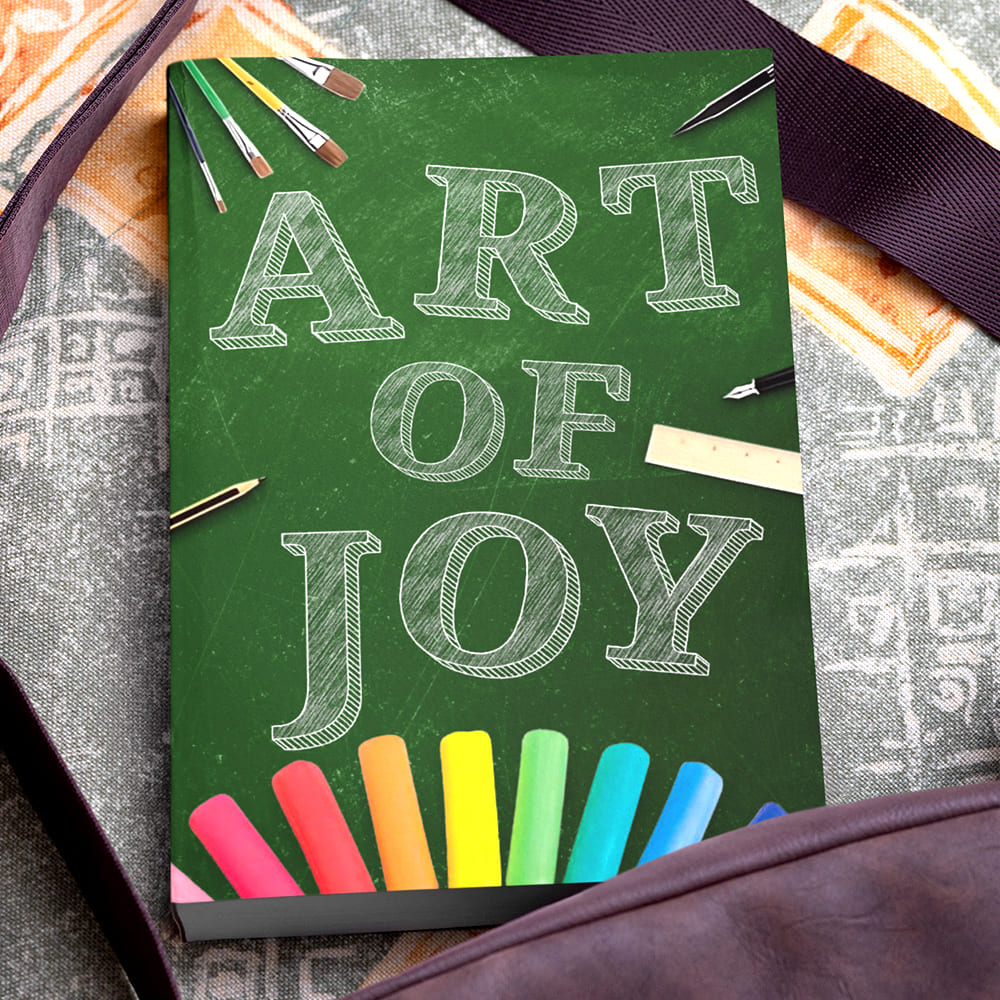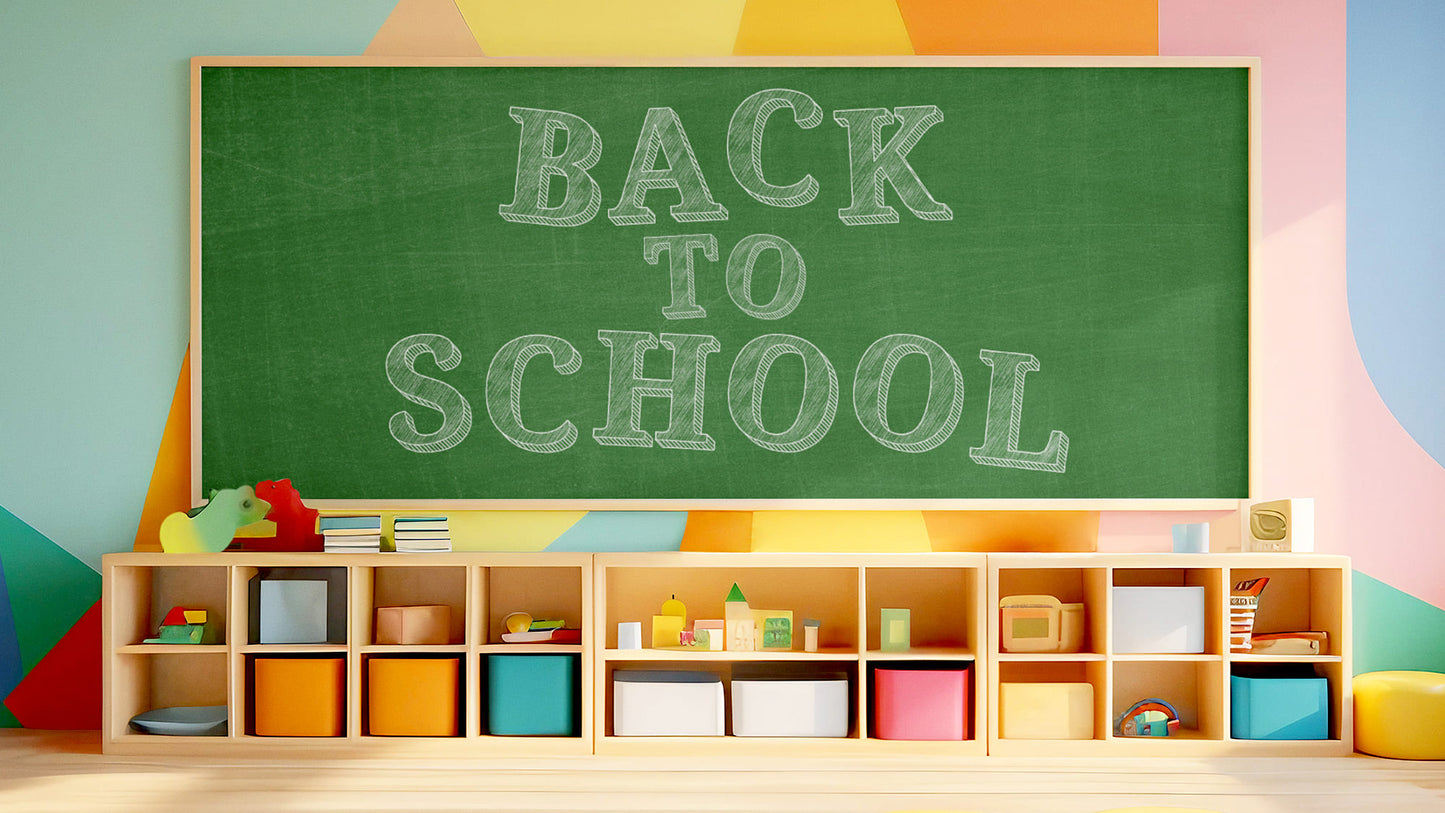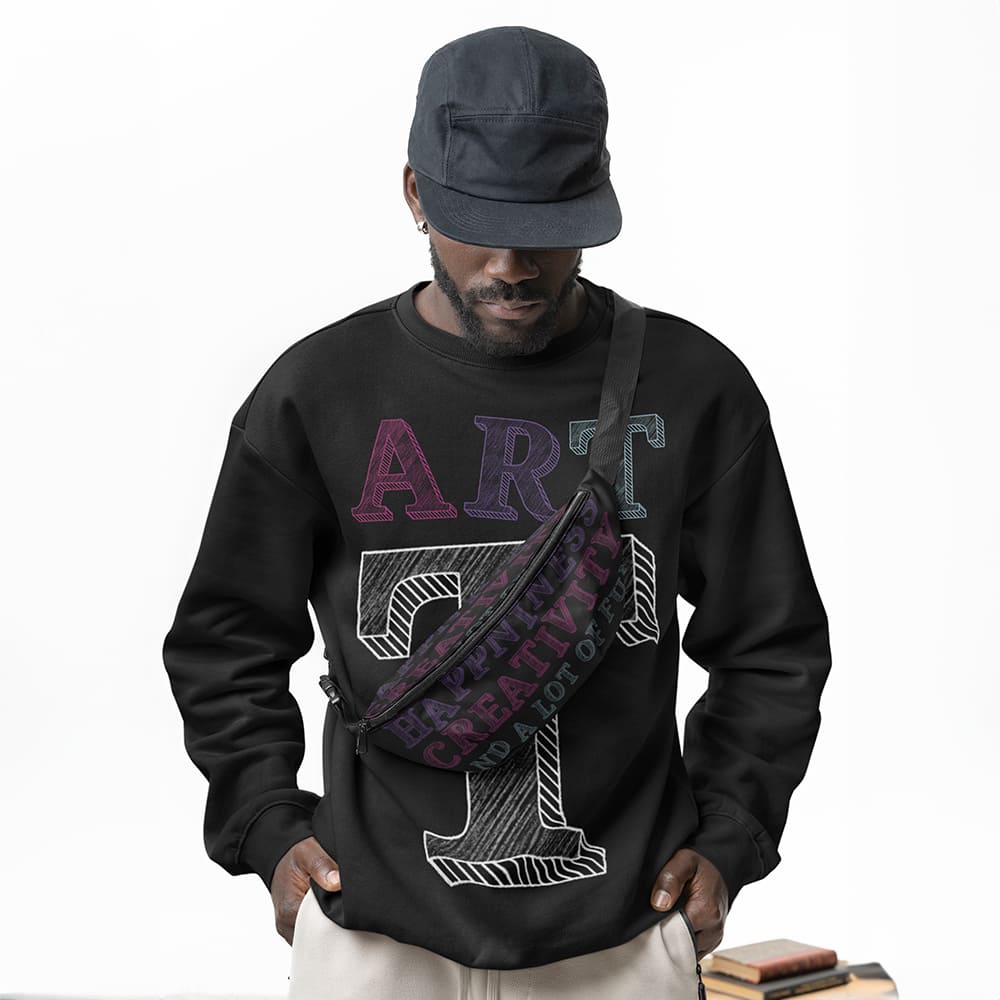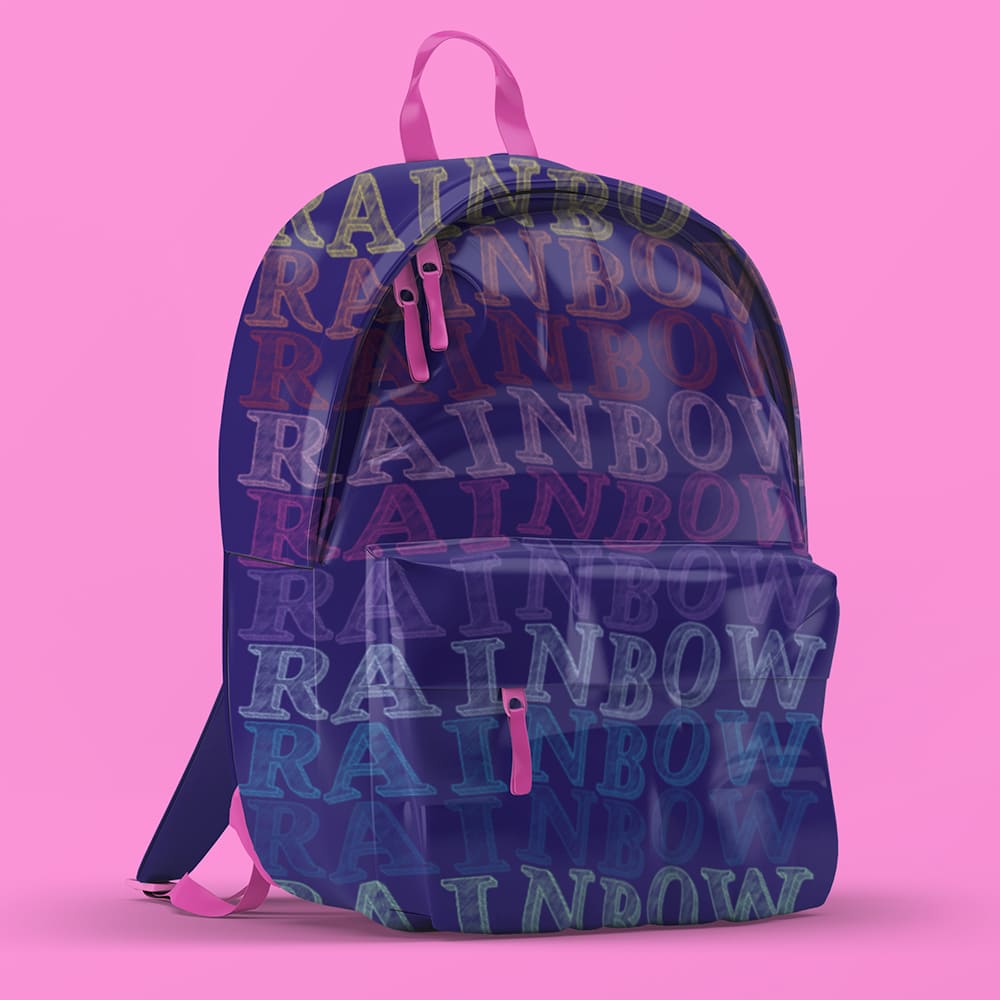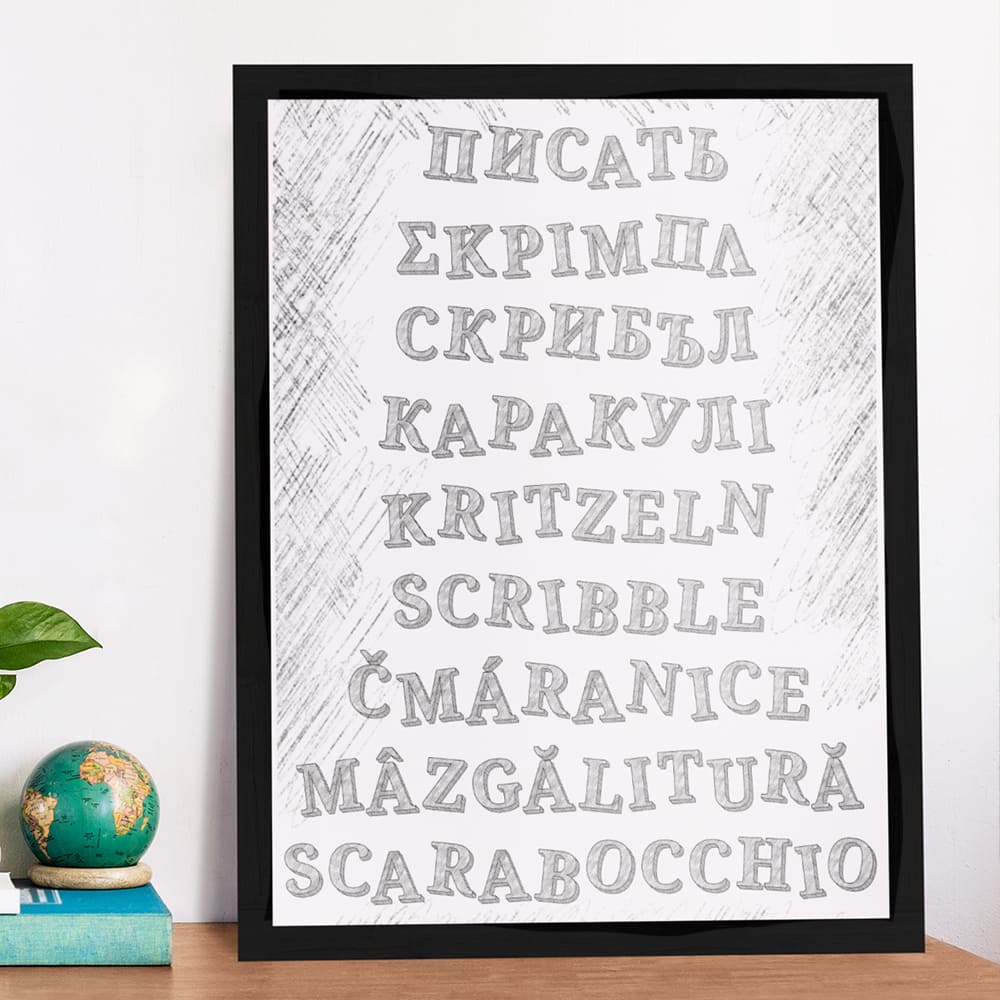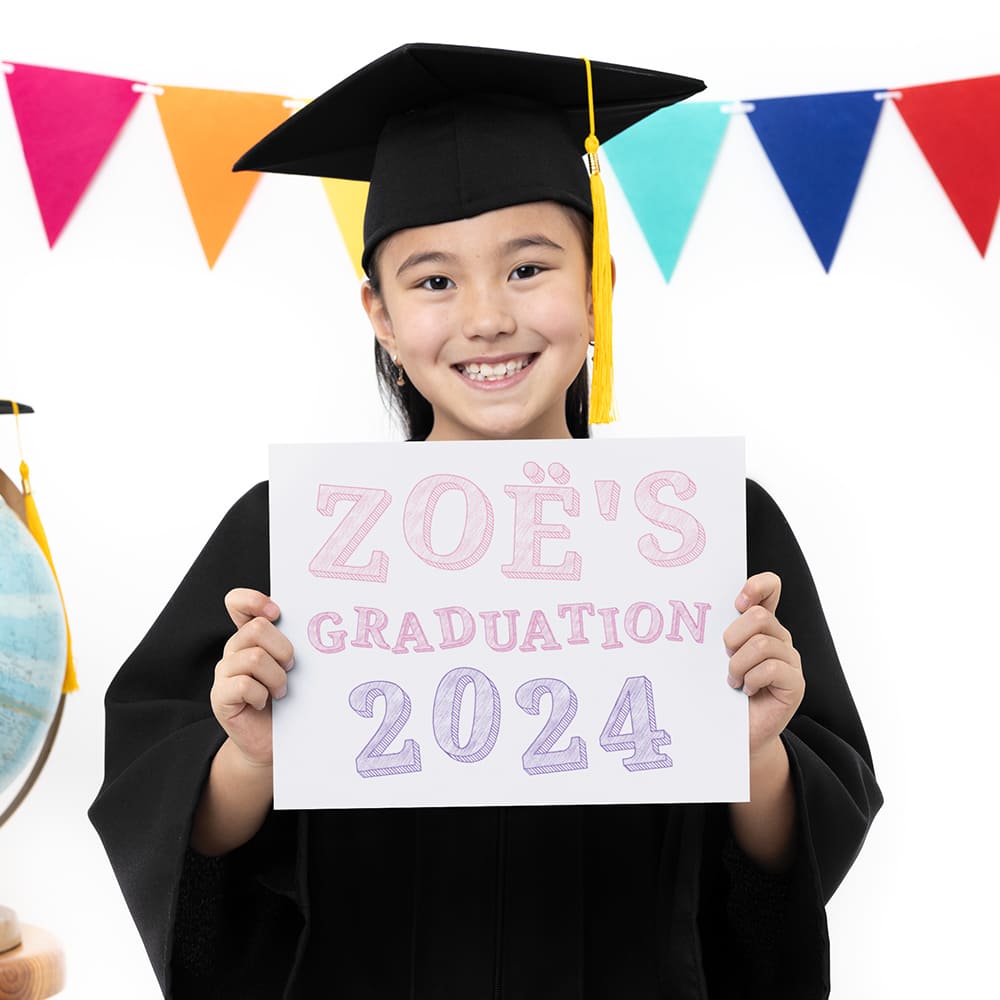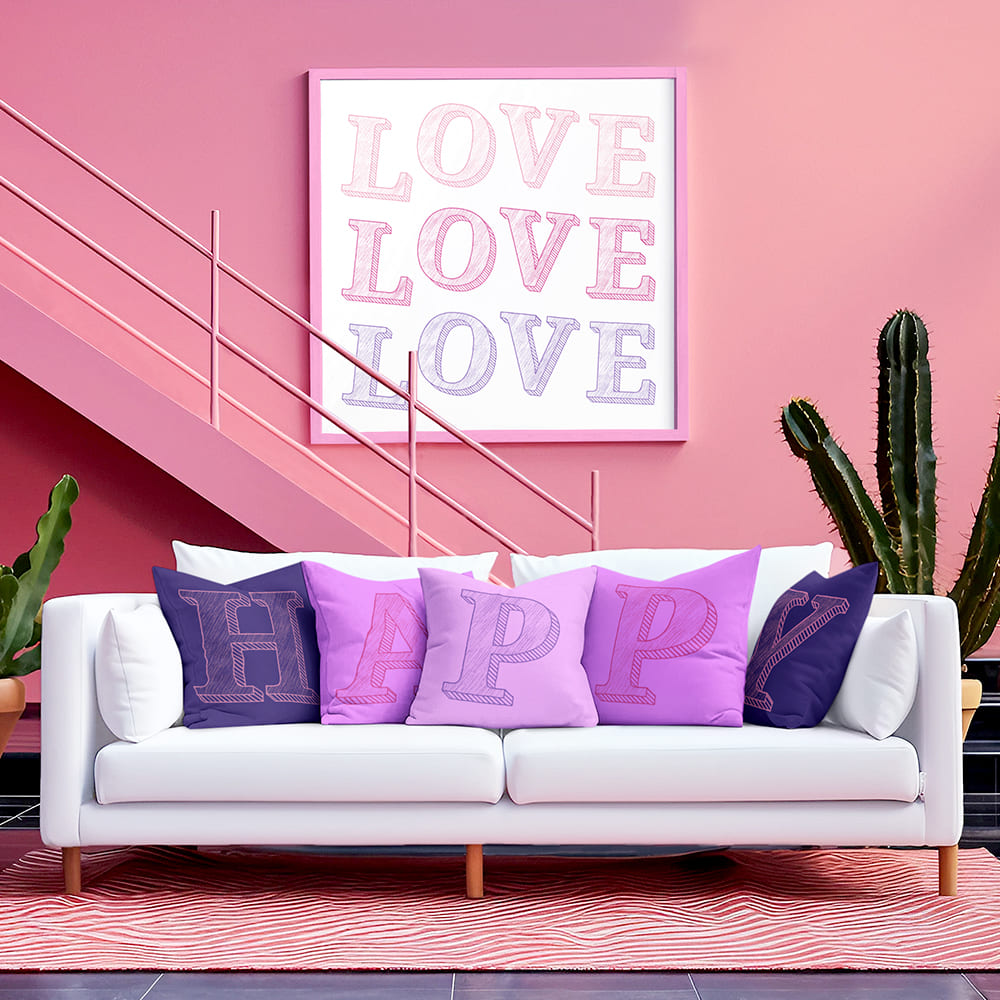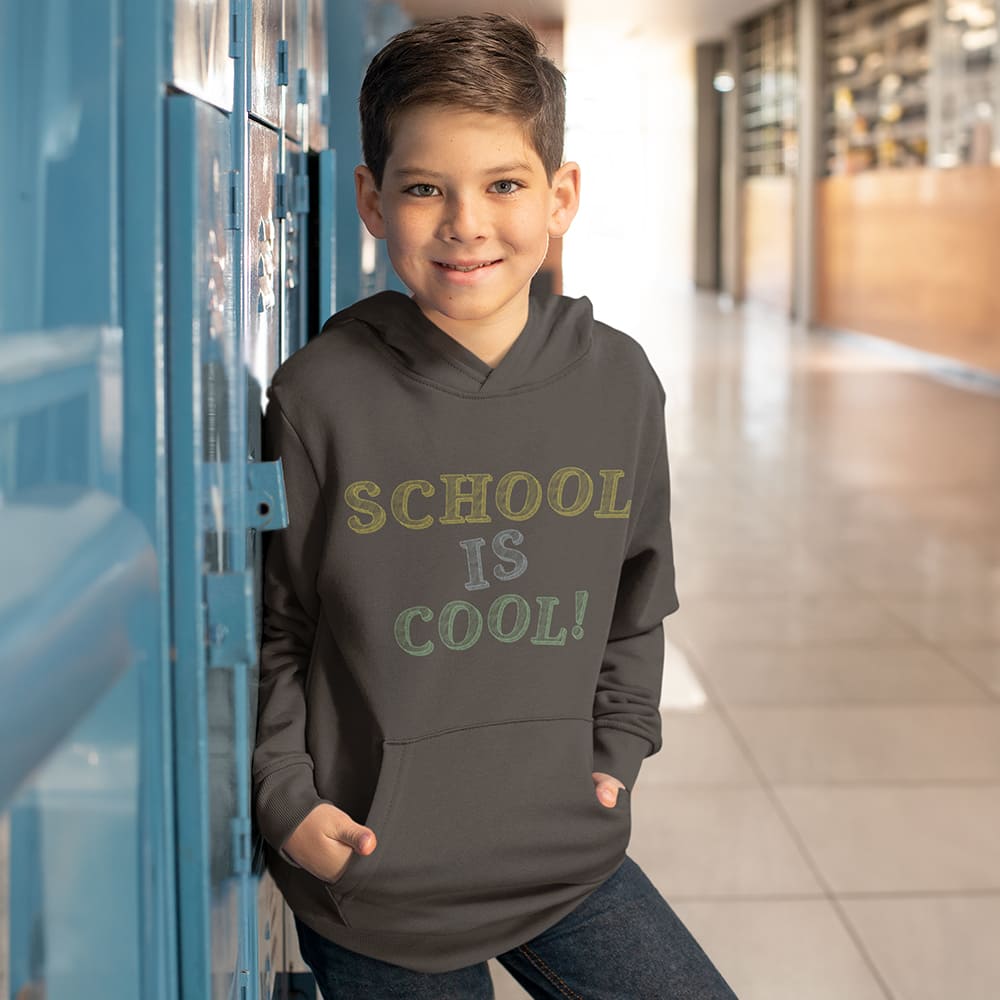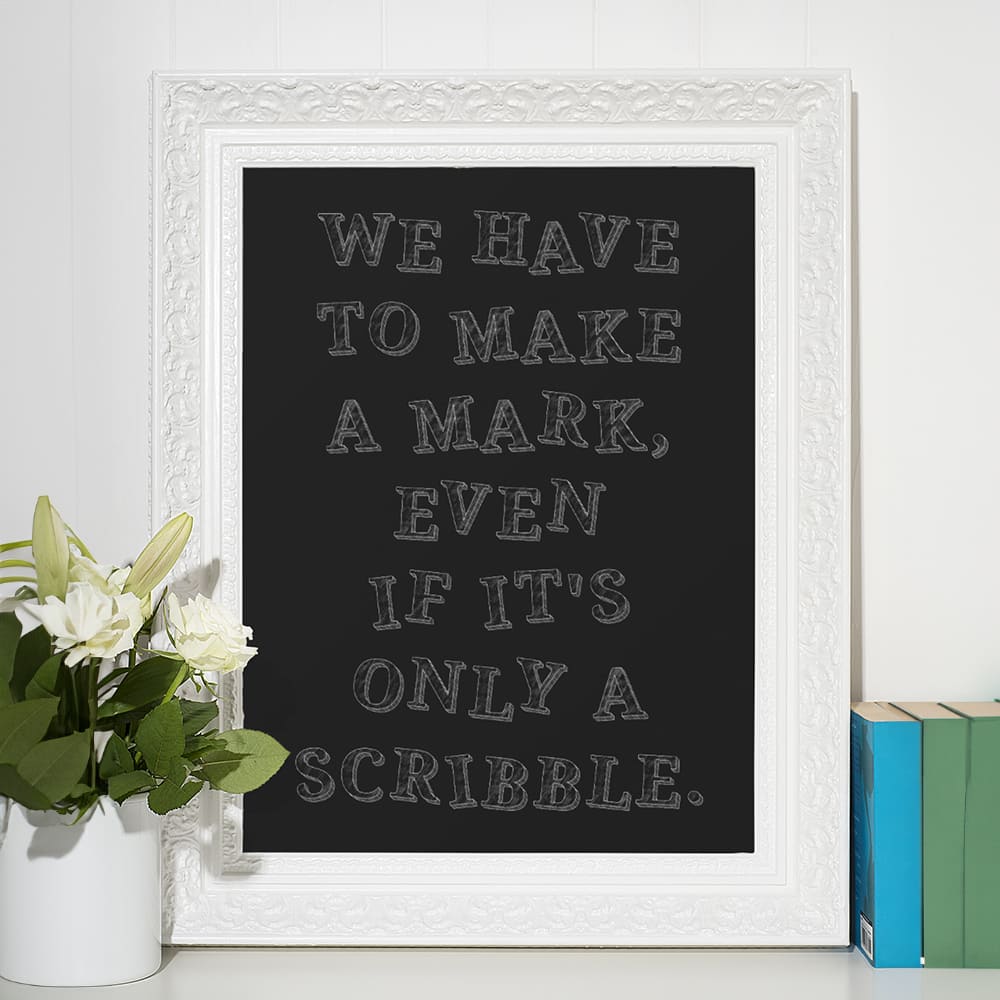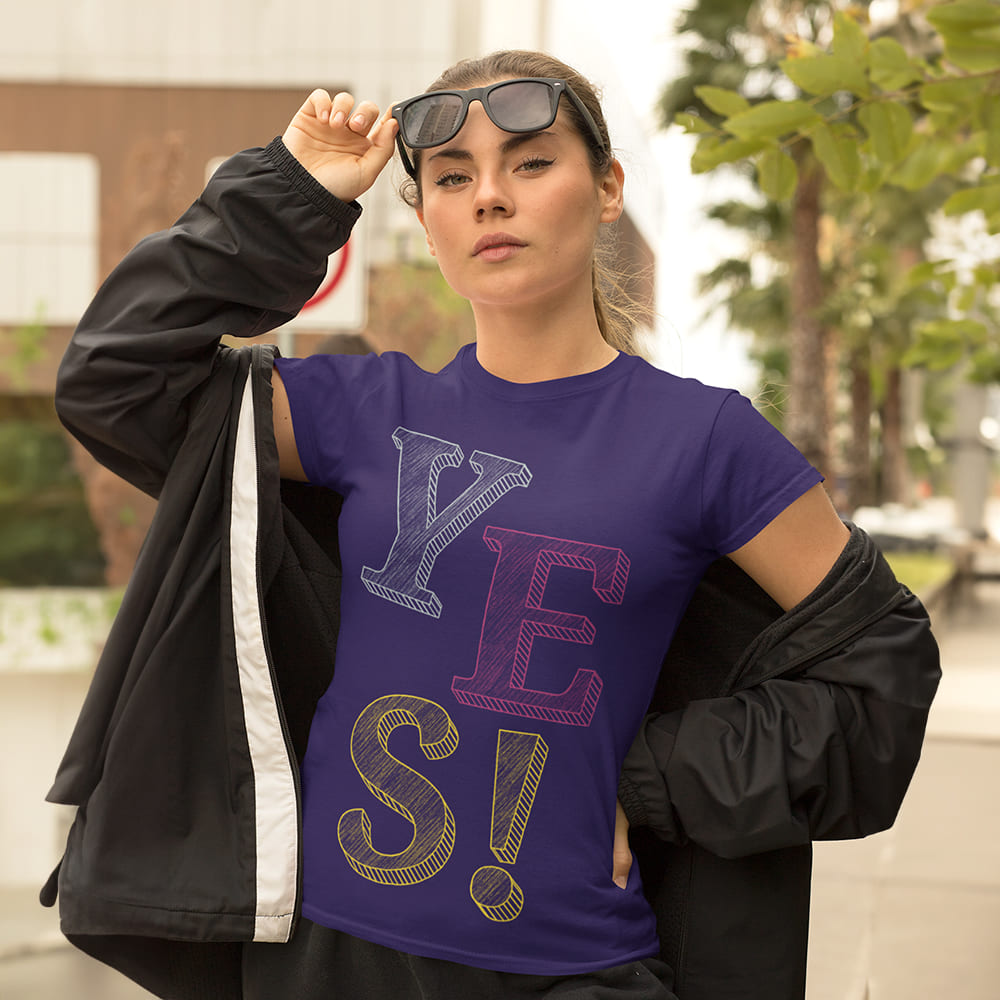
Chalk Font
Chalky, Creative, Expressive 🖼️🖌️🎨
Whether on a classroom blackboard, a sidewalk, or a trendy café menu – chalk has its own unique charm. The Chalk Font brings this handcrafted, creative feeling straight into your design. Perfect for anyone who loves the look of chalk – rough, playful, and full of character!
Why Choose the Chalk Font?
🔹 Hand-drawn look – Imperfectly perfect! This font looks as if it was written with real chalk.
🔹 Perfect for creative projects – Whether for café boards, posters, school designs, or social media, this font adds a charming, lively touch to your design.
🔹 Natural & authentic – Inspired by handwritten chalkboards, this font conveys warmth, personality, and creativity.
Bring Your Design to Life with the Chalk Font
Make your design unique, inviting, and handcrafted! This font is available in multiple colors, giving you even more ways to create your perfect look.
🔹 Be creative. Be authentic. Be chalk.
🔹 Choose handcrafted. Choose character. Choose the Chalk Font.